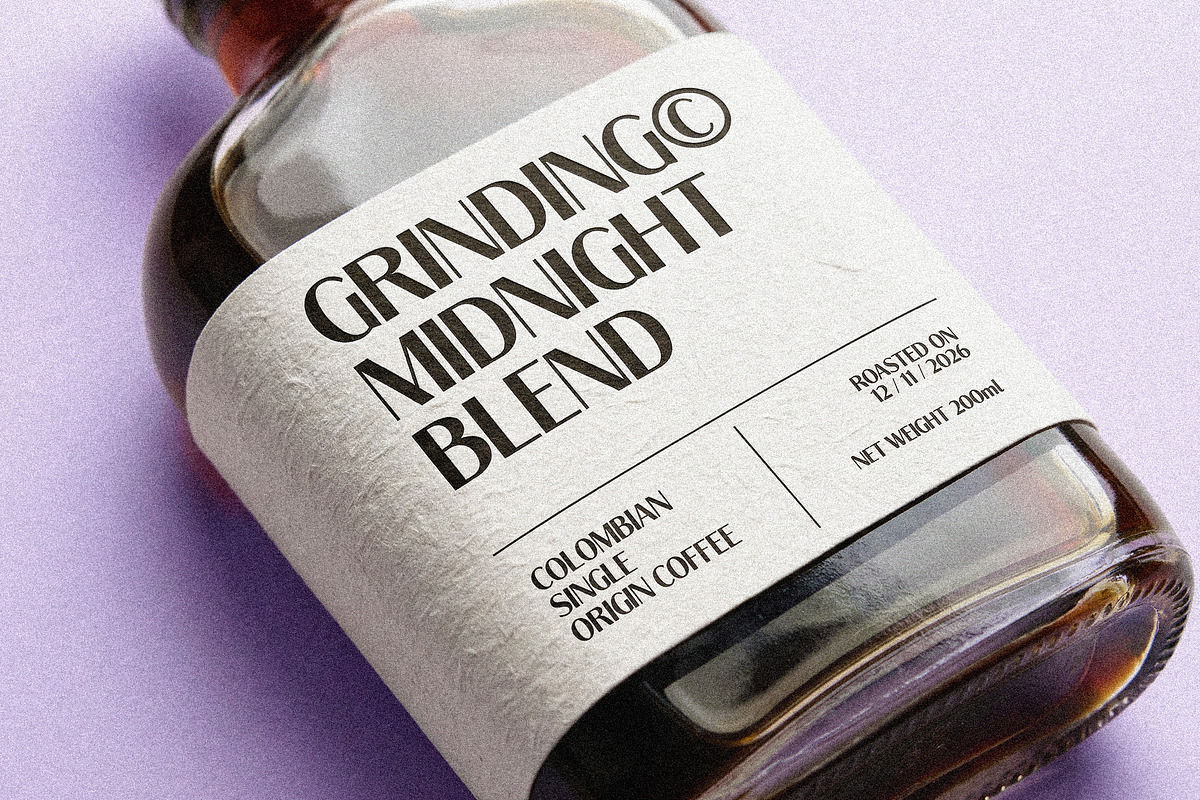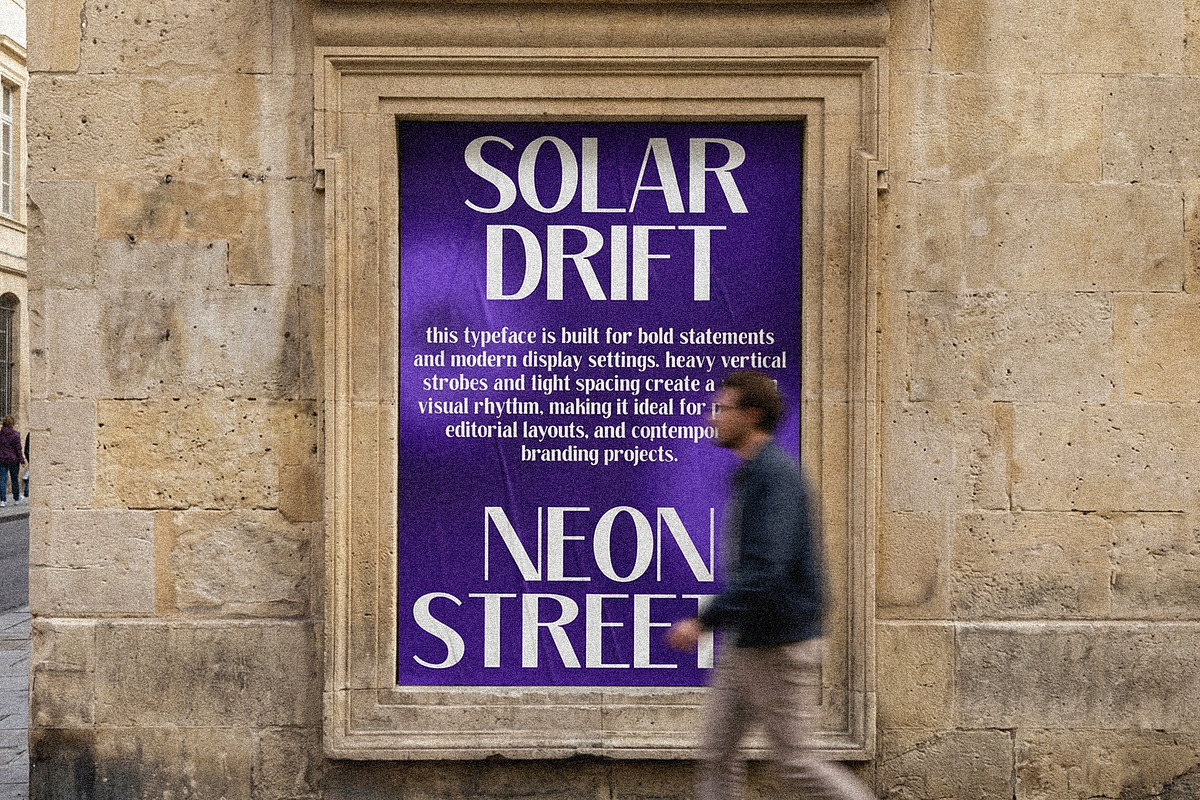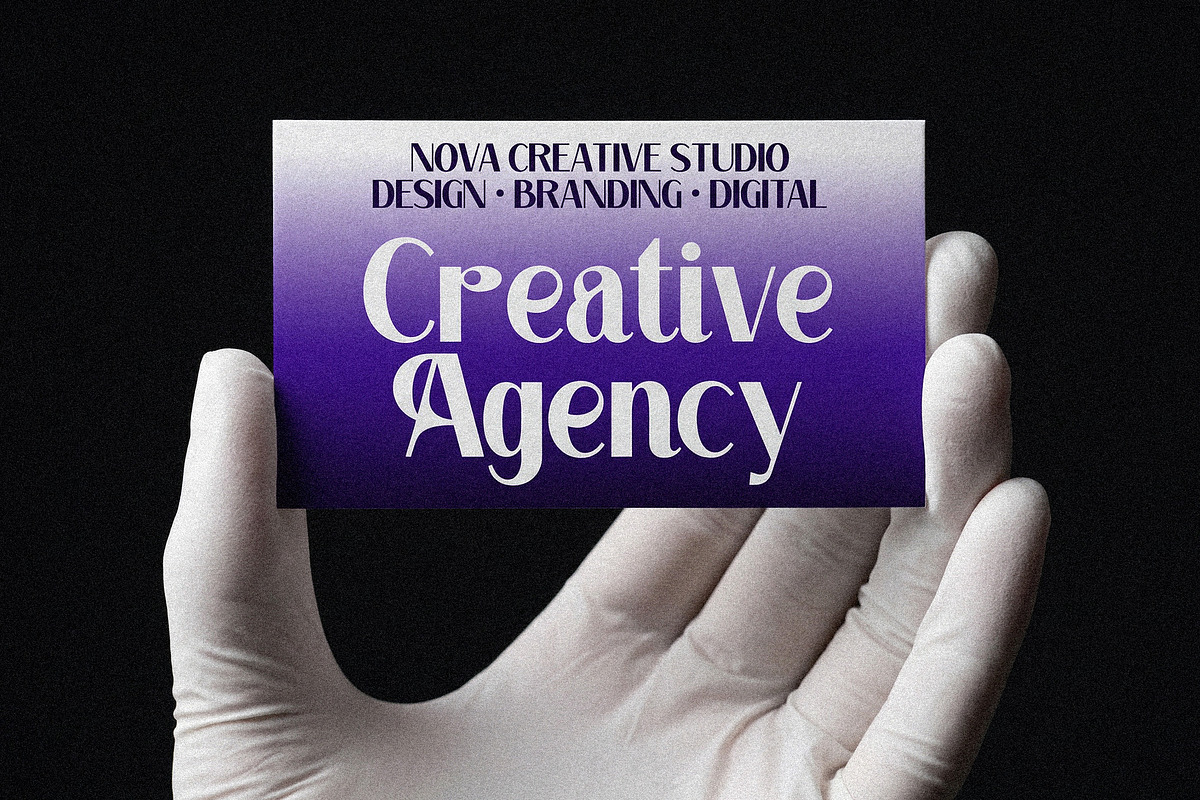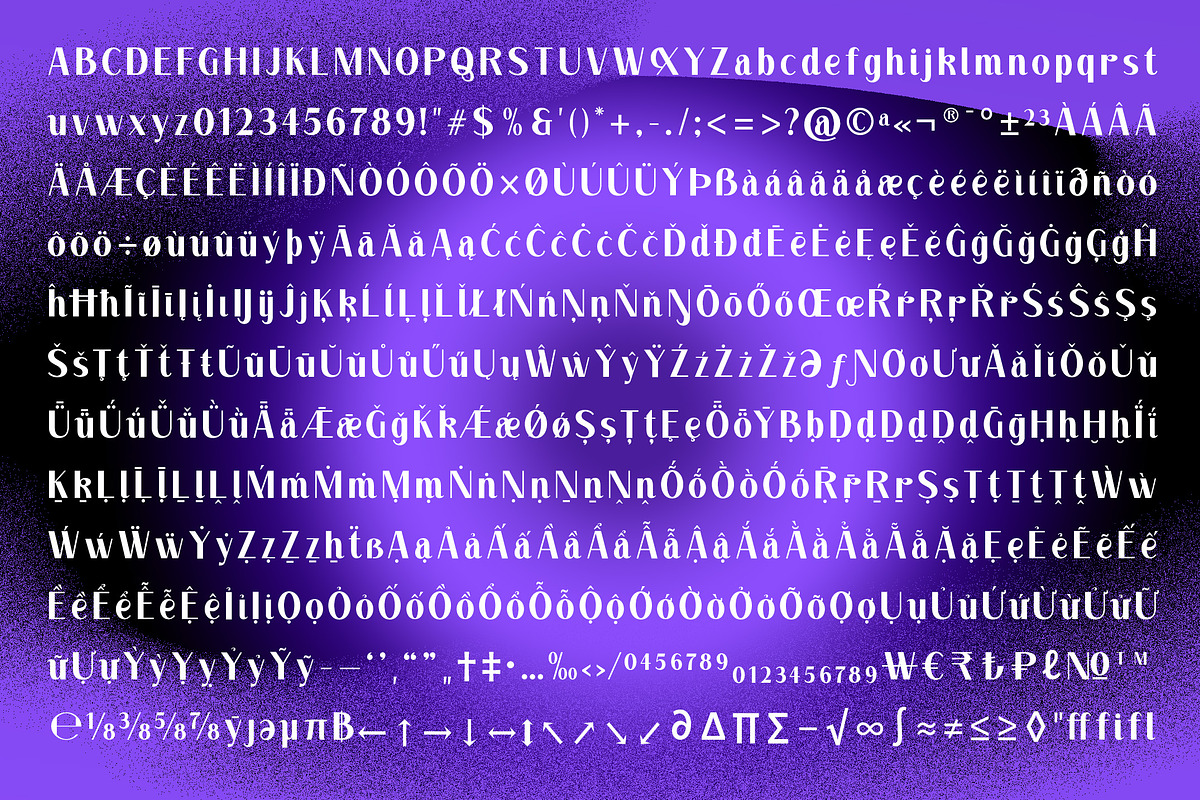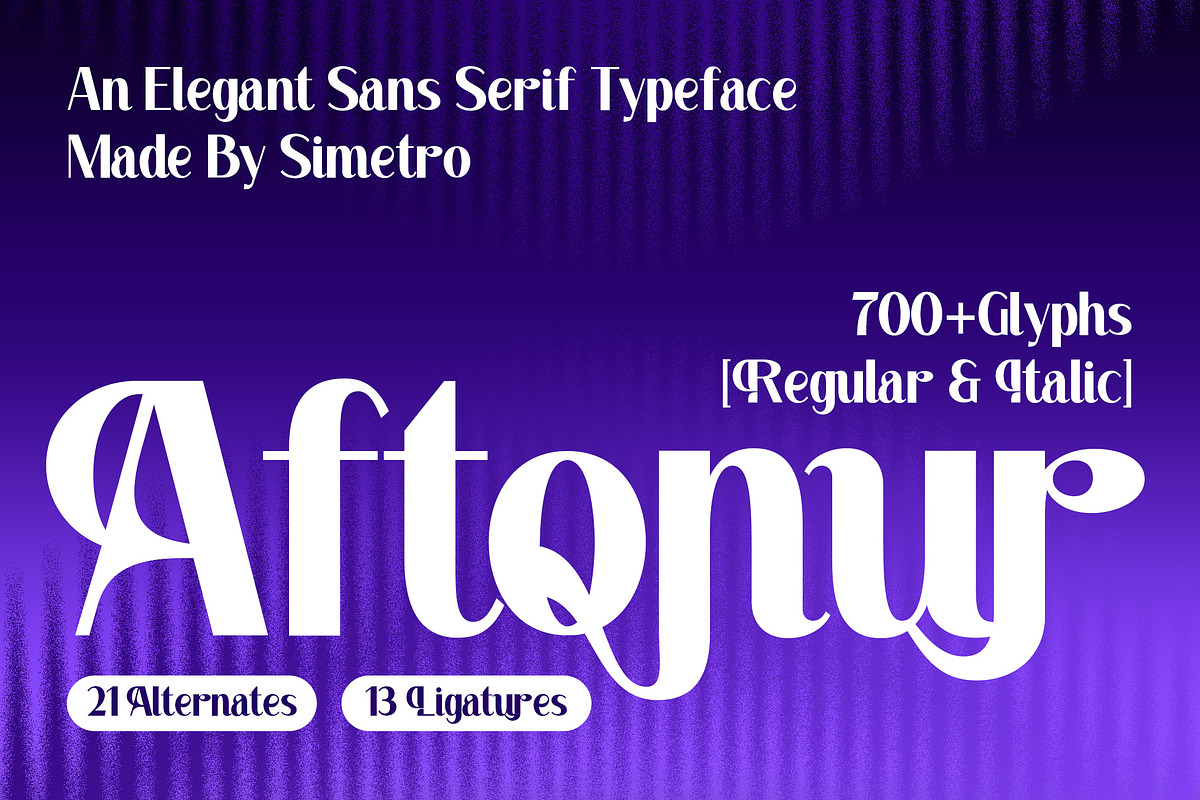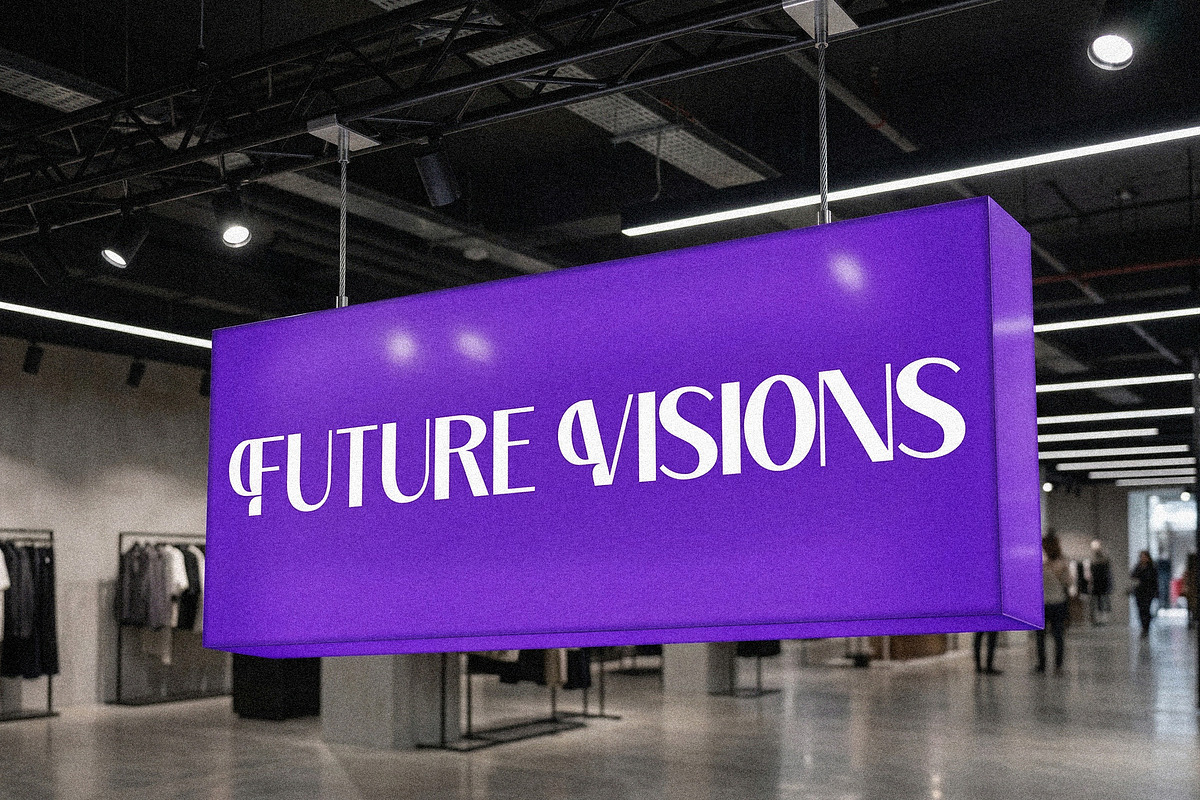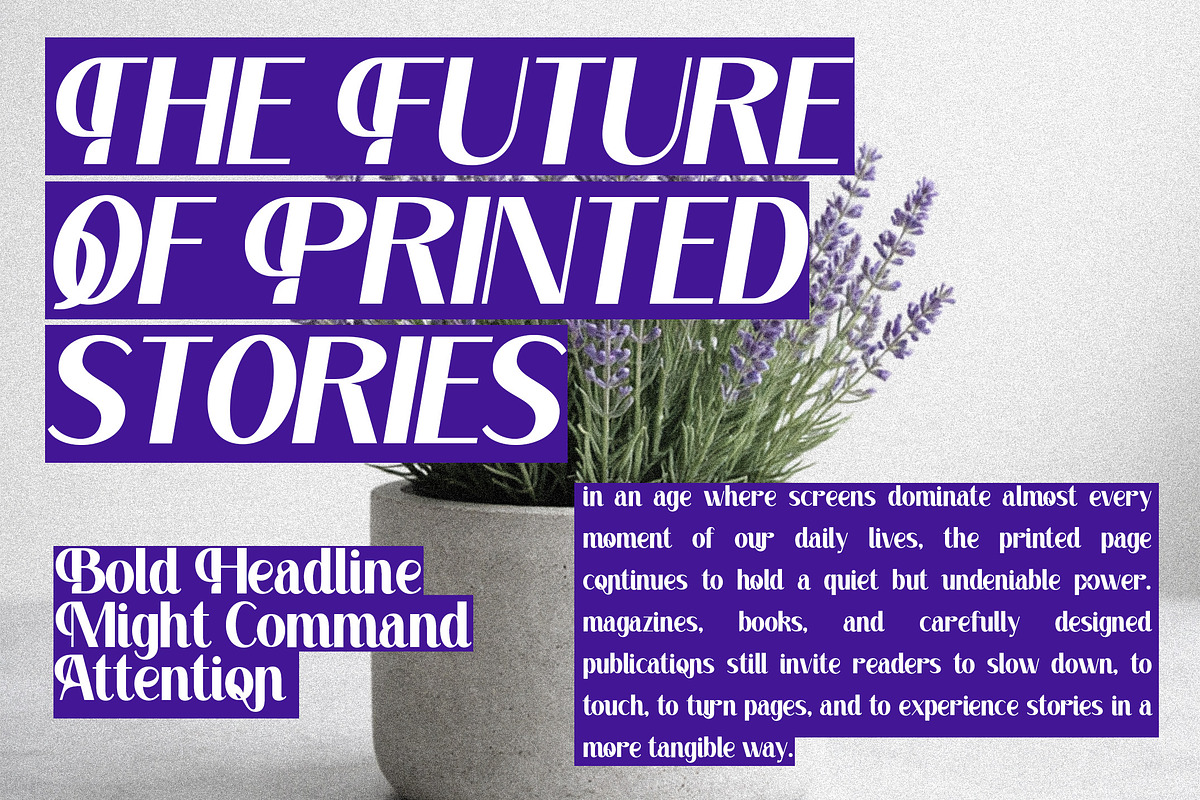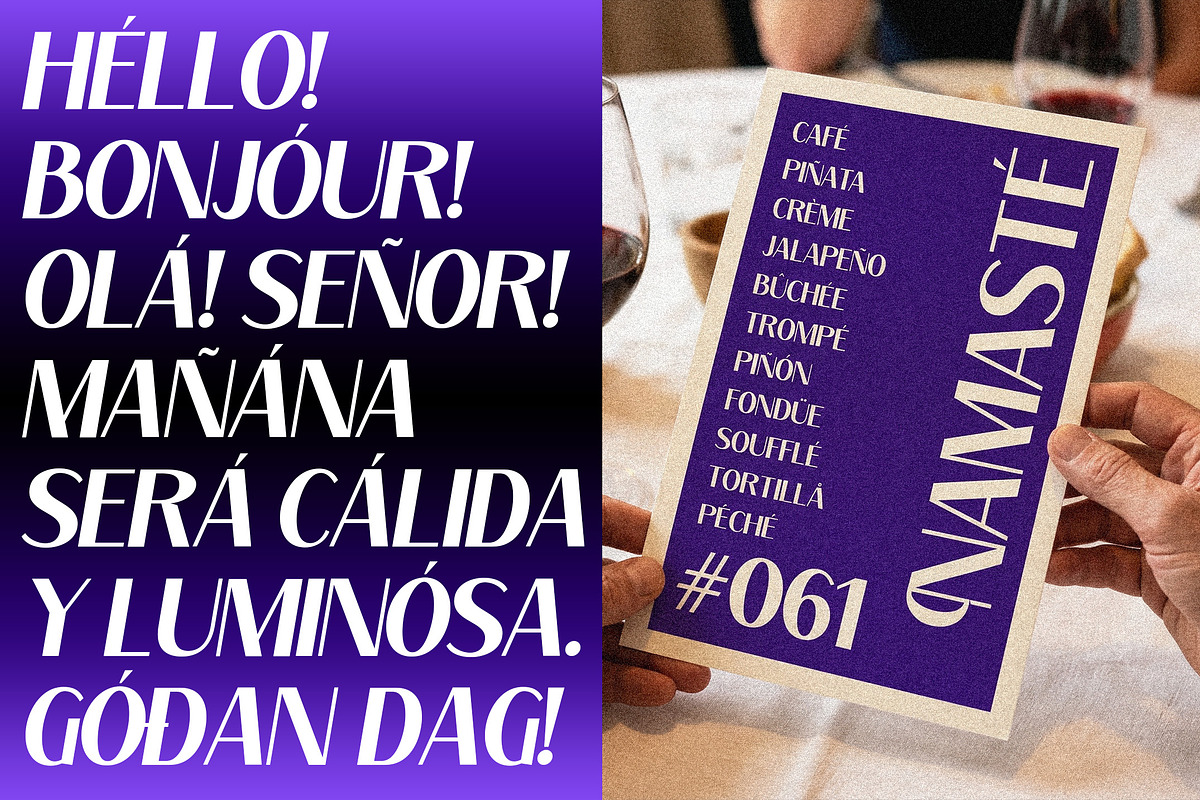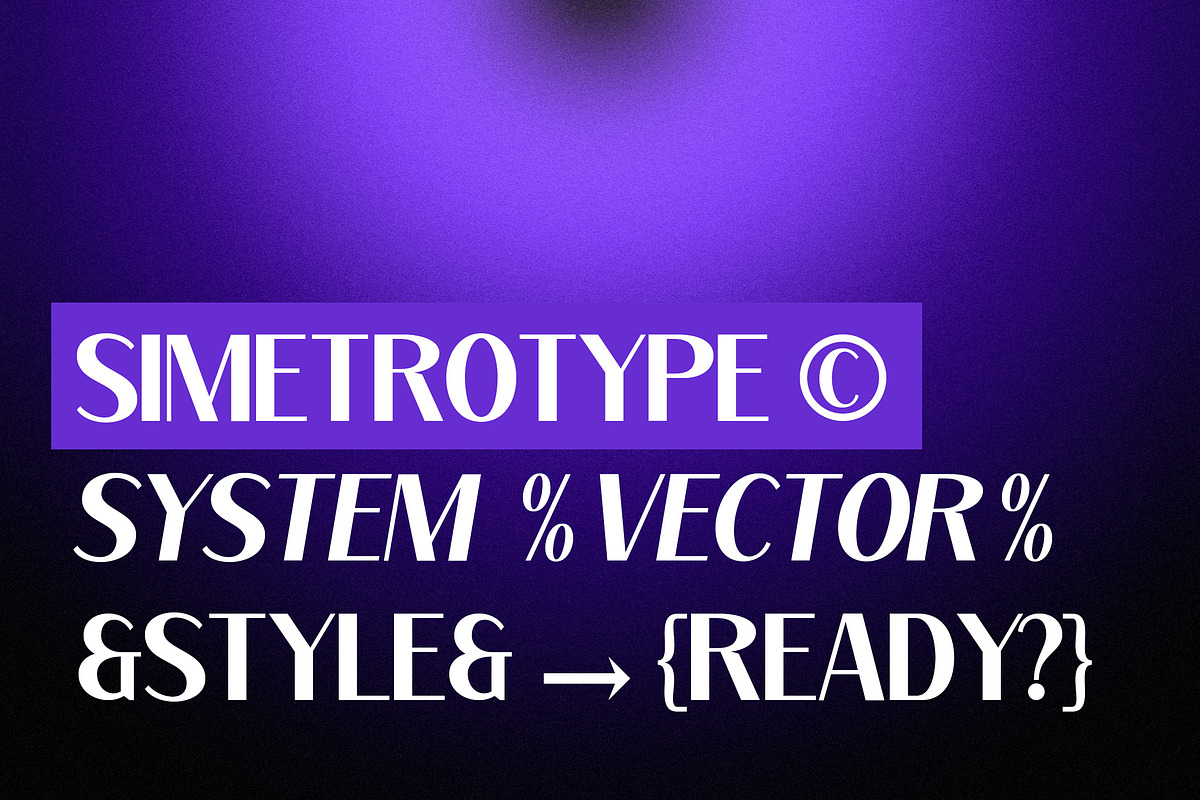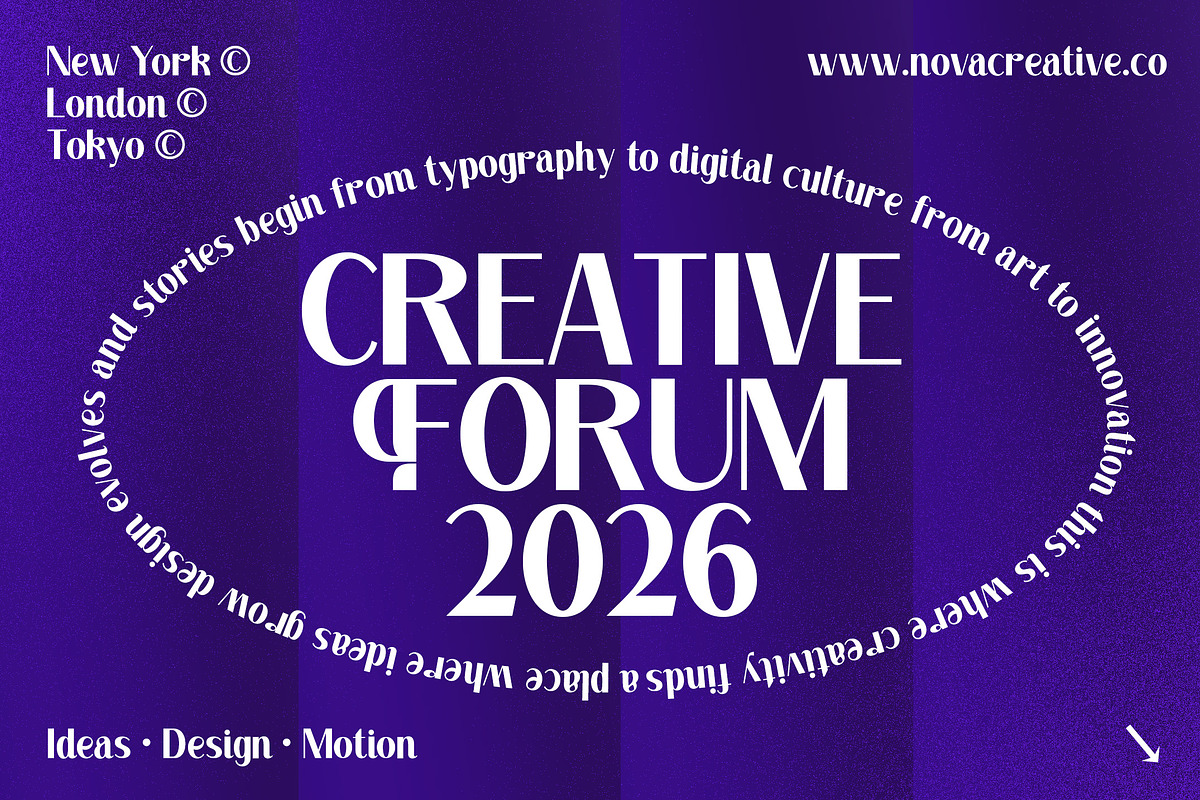
Aftonur – Elegant Sans Serif Typefac
Aftonur is an elegant sans serif typeface designed to bring a refined and modern touch to your typography projects. Featuring a graceful balance between clean sans serif structure and subtle decorative curves, Aftonur creates a sophisticated visual rhythm that stands out in both headlines and branding applications.
The typeface comes with Regular and Italic styles, allowing designers to build harmonious typographic compositions with ease. Its distinctive letterforms are enhanced with 21 stylistic alternates (SS01) and 13 beautiful ligatures, giving you the flexibility to craft more expressive and stylish wordmarks, logos, and editorial layouts.
Aftonur also supports multilingual characters, making it suitable for a wide range of international design needs including Western European, Central European, and various extended Latin languages. Whether used for branding, packaging, editorial design, or elegant display typography, Aftonur delivers a unique and polished aesthetic.
Perfect for designers looking to add a touch of elegance and personality to their visual identity projects.
- Regular & Italic Styles
- Uppercase & Lowercase Letters
- 21 Stylistic Alternates (SS01)
- 13 Ligatures